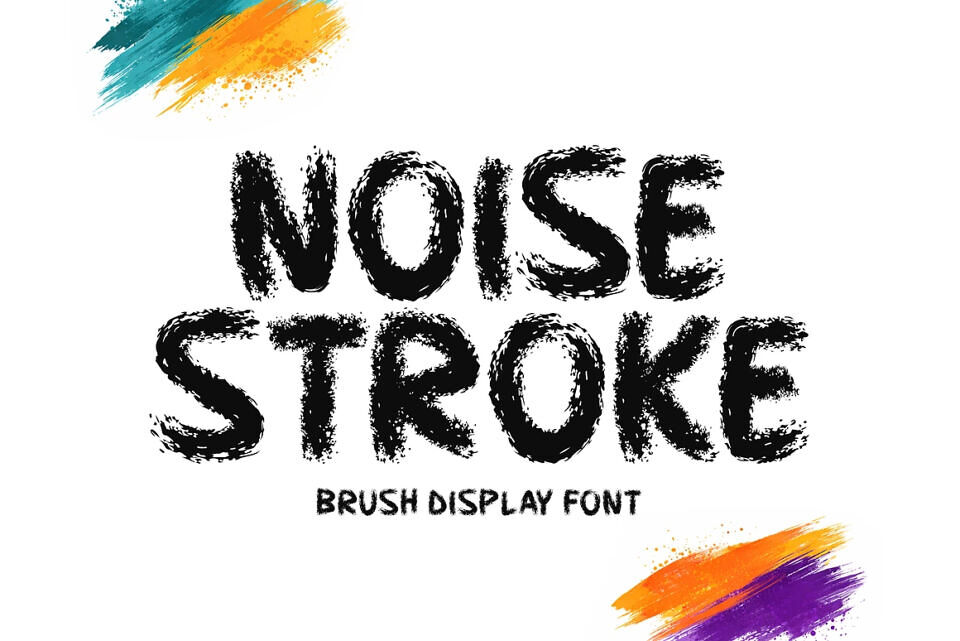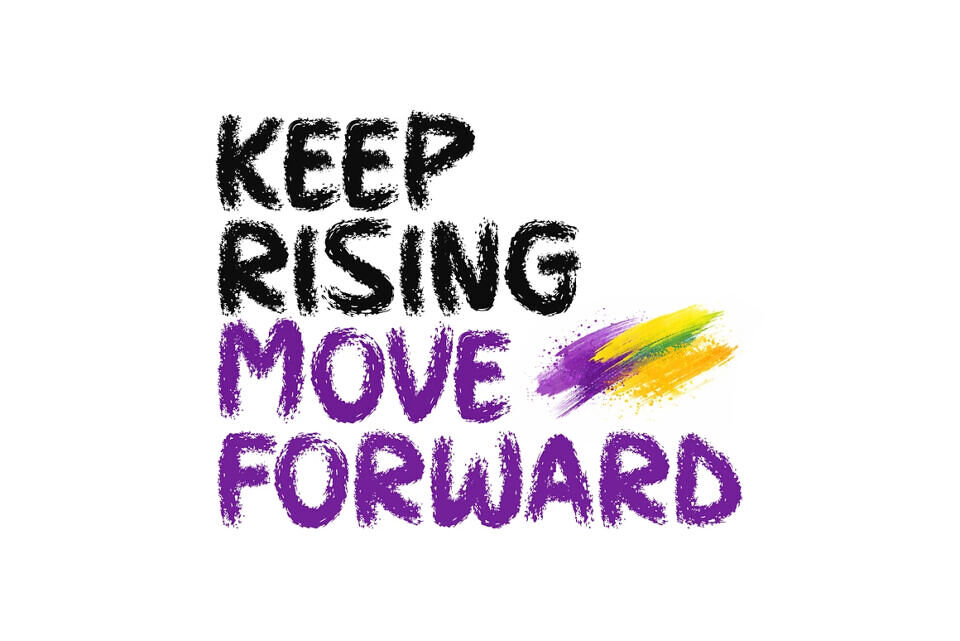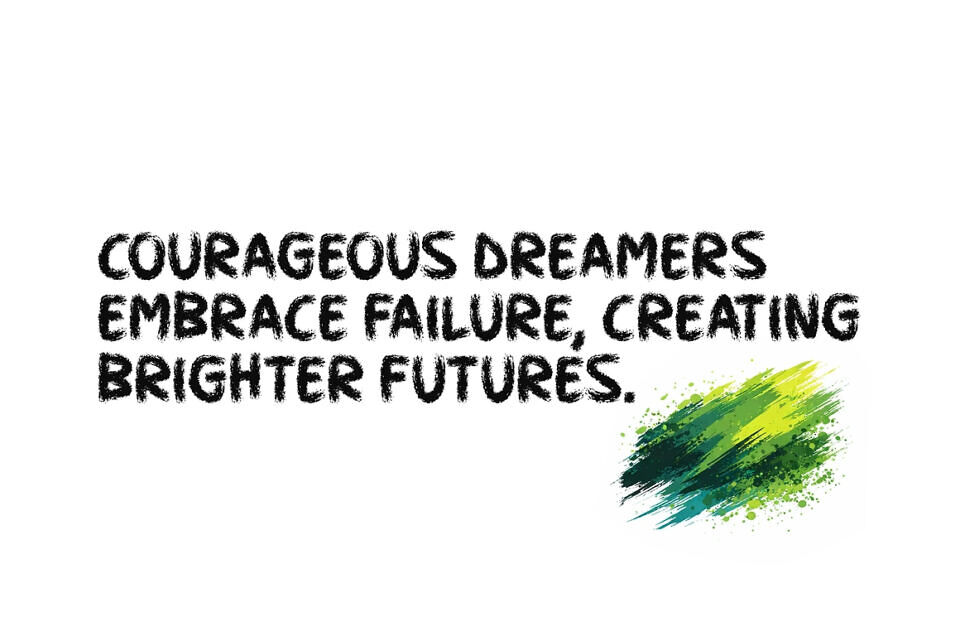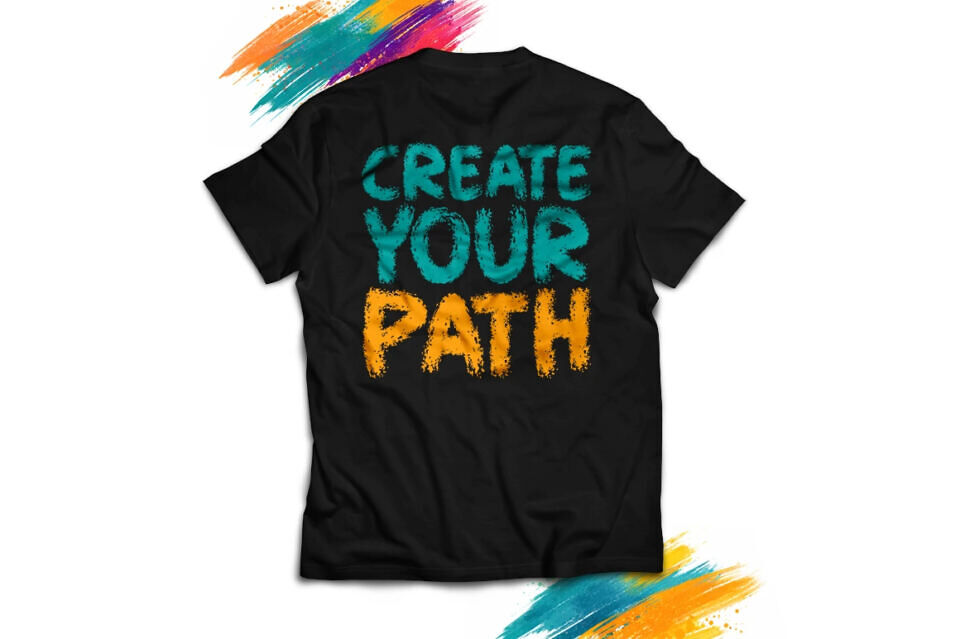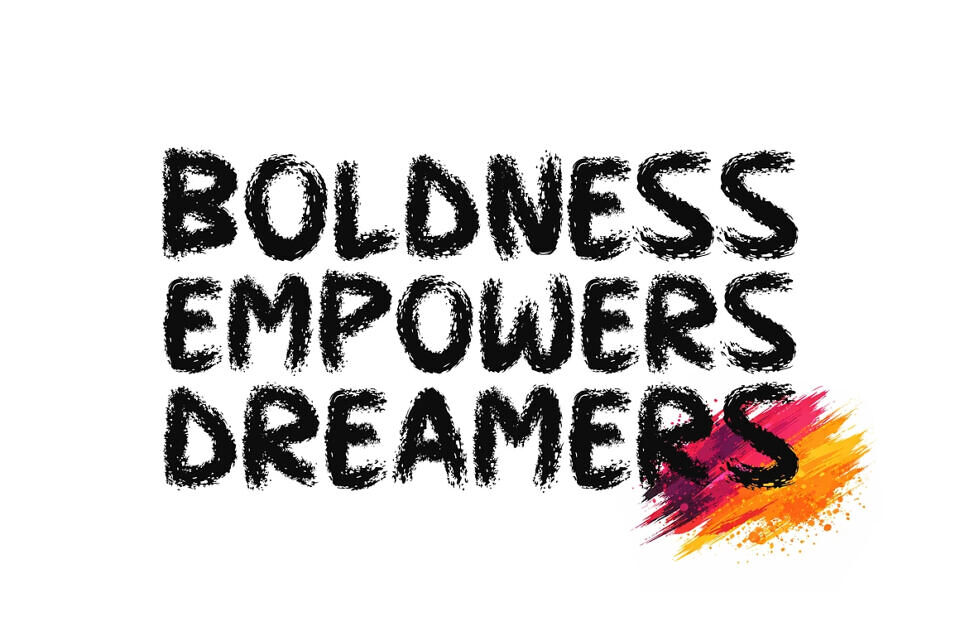
Noise Stroke is a bold brush display font with raw texture and expressive strokes. Its rough, hand-painted style adds strong character and powerful impact to headlines, posters, branding, and creative designs.
Crafted with an organic, energetic feel, Noise Stroke captures the natural movement of real brush marks, giving every letter a dynamic and authentic look. Perfect for statement typography, apparel graphics, music covers, and social media visuals, it delivers a gritty yet modern aesthetic that makes every word stand out with confidence and attitude.